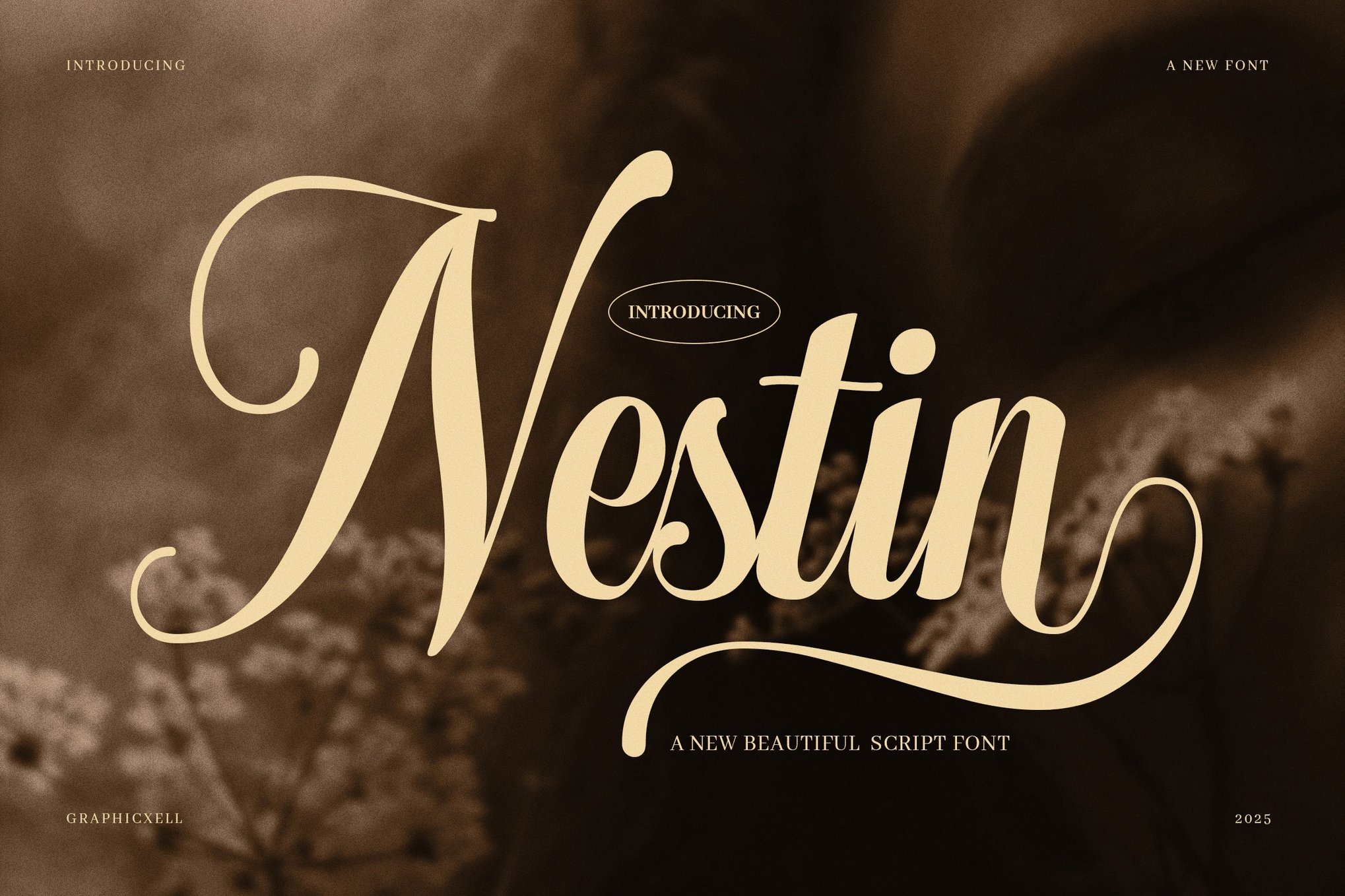
Nestin Font
Nestin Font is a flexible and reliable font created to fit multiple design needs, from branding and packaging to social media and editorial layouts. Nestin is an elegant script font created to express beauty, warmth, and refined emotion. It features flowing strokes, graceful curves, and balanced letterforms that feel natural and expressive. Because of its smooth rhythm, Nestin brings a personal and luxurious touch to every design.
This script font blends modern elegance with classic calligraphy style. As a result, it works beautifully for fashion branding, lifestyle visuals, and inspirational quotes. Moreover, each letter connects smoothly, allowing words to feel fluid and alive. The soft contrast and stylish swashes add charm without overwhelming the message.
Nestin is ideal for designers who want elegance with clarity. Therefore, it fits perfectly in logos, packaging, social media graphics, and website headers. In addition, it performs well in print projects such as wedding invitations, greeting cards, and premium product labels.